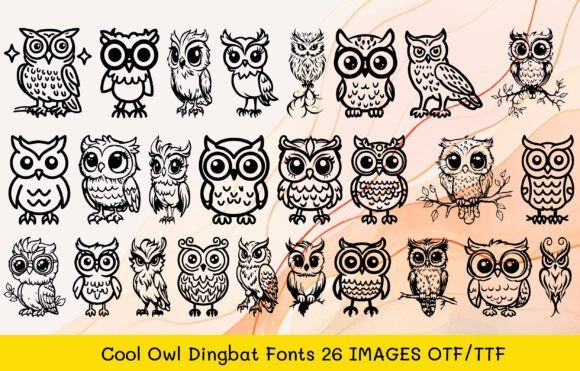
Introduction to Cool Owl Font
Cool Owl Dingbats Fonts.
This set features 26 unique star-inspired owl designs, each corresponding to a letter from A to Z Includes both OTF and TTF file formats, perfect for crafting, decorating, and adding a playful, nature-inspired vibe to your creations.
Key Features of Cool Owl Font